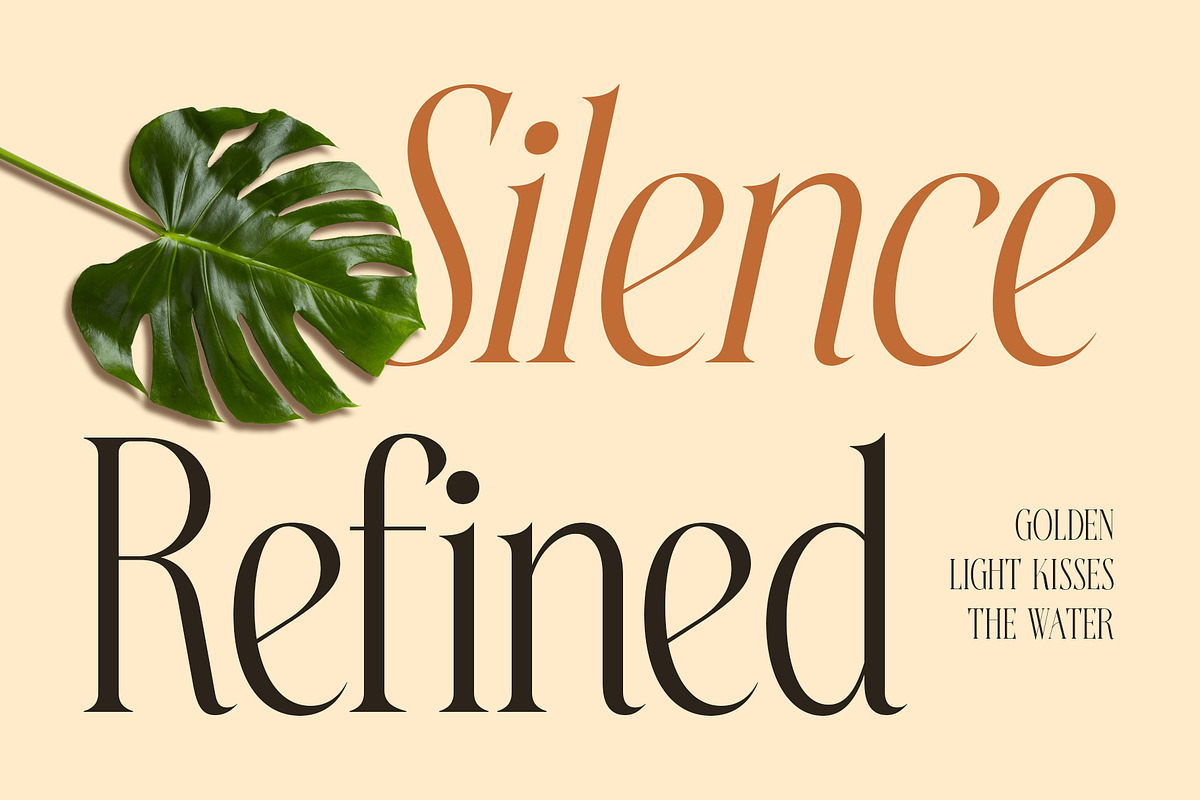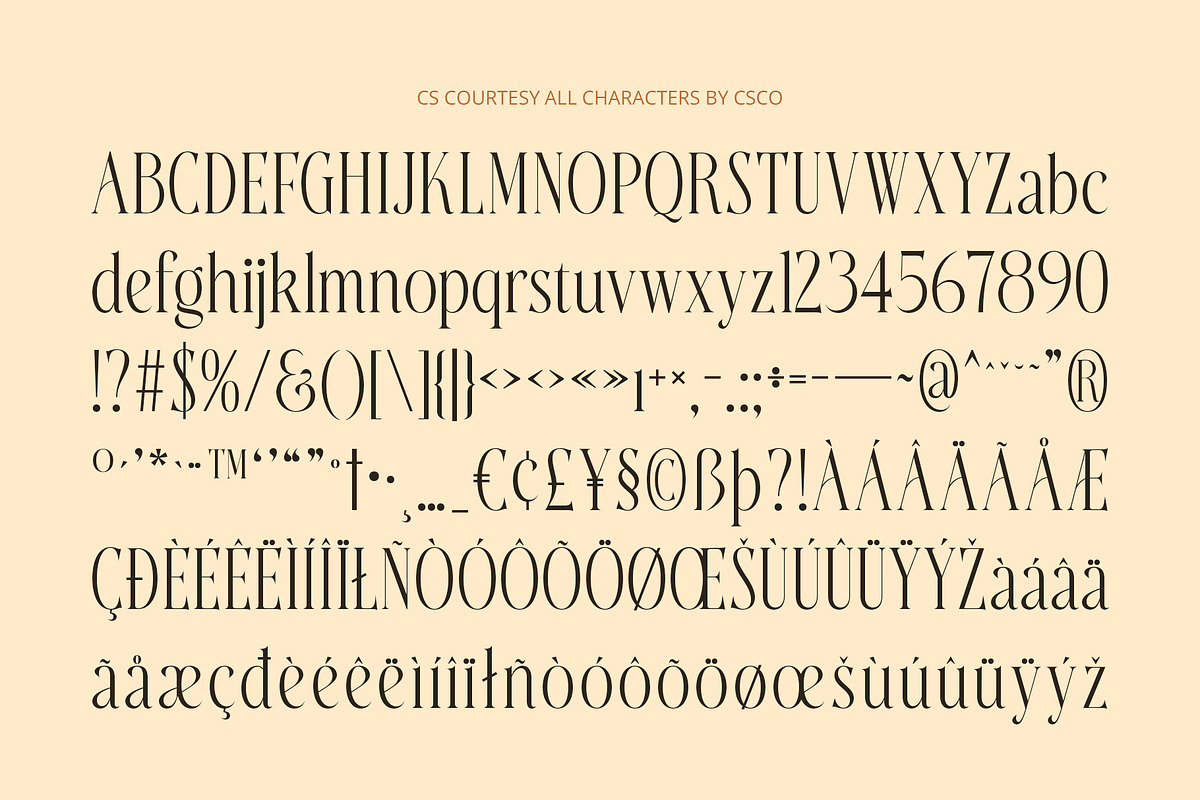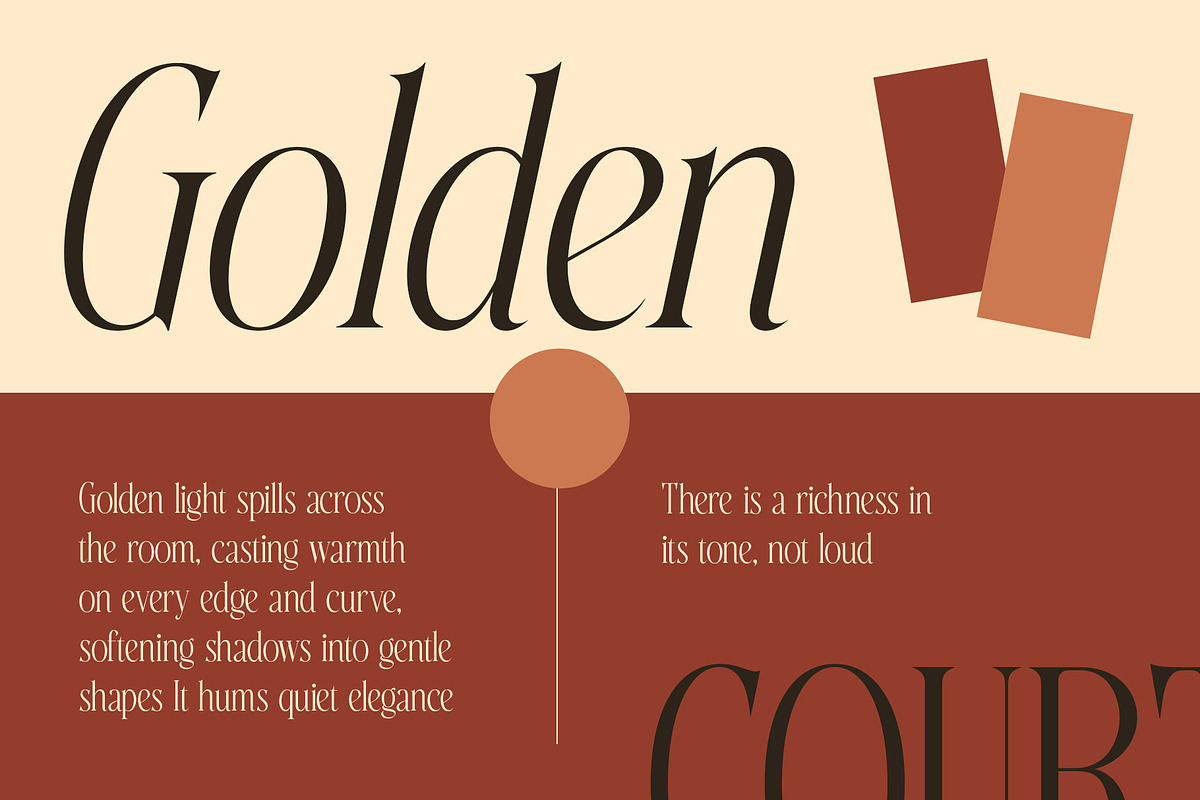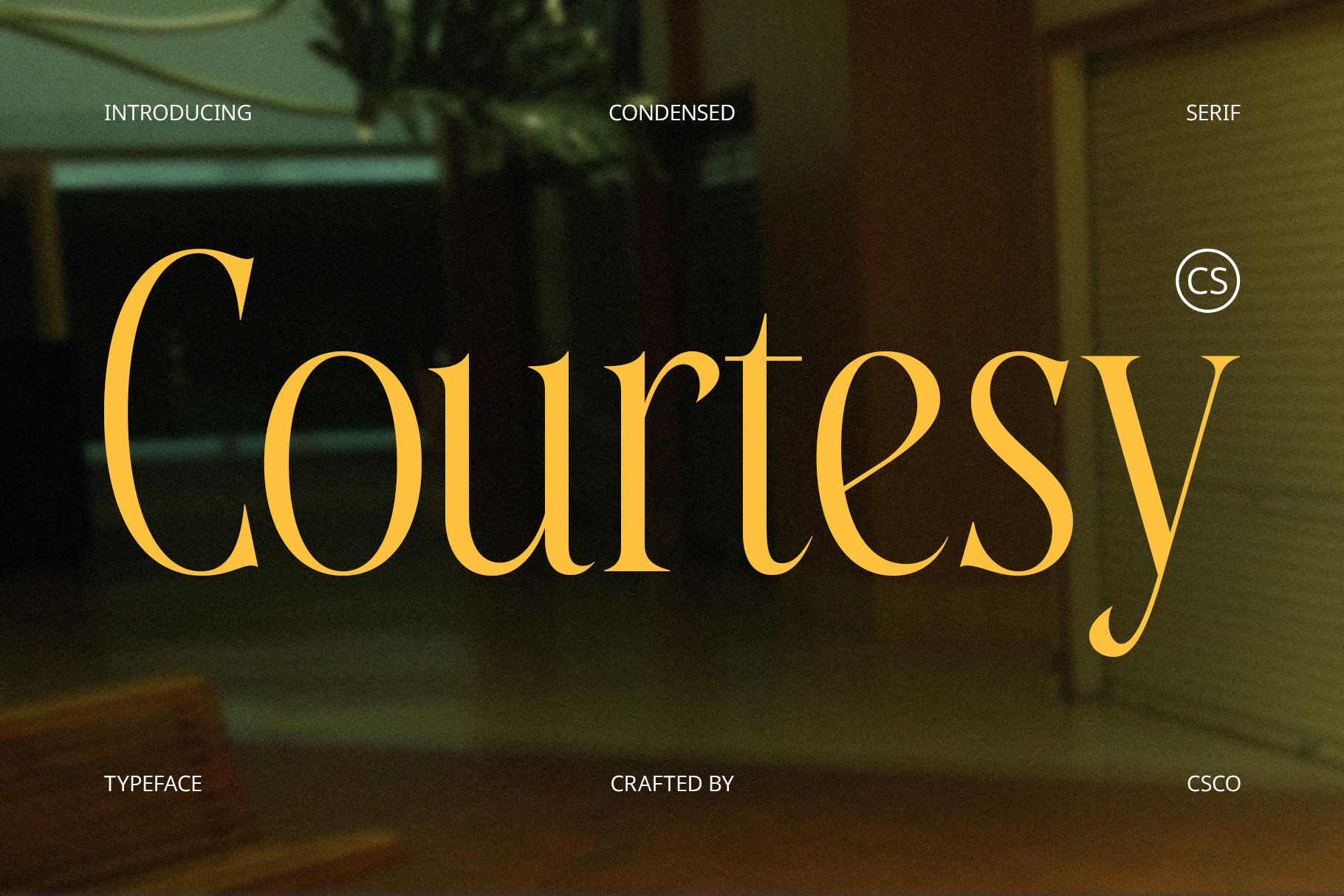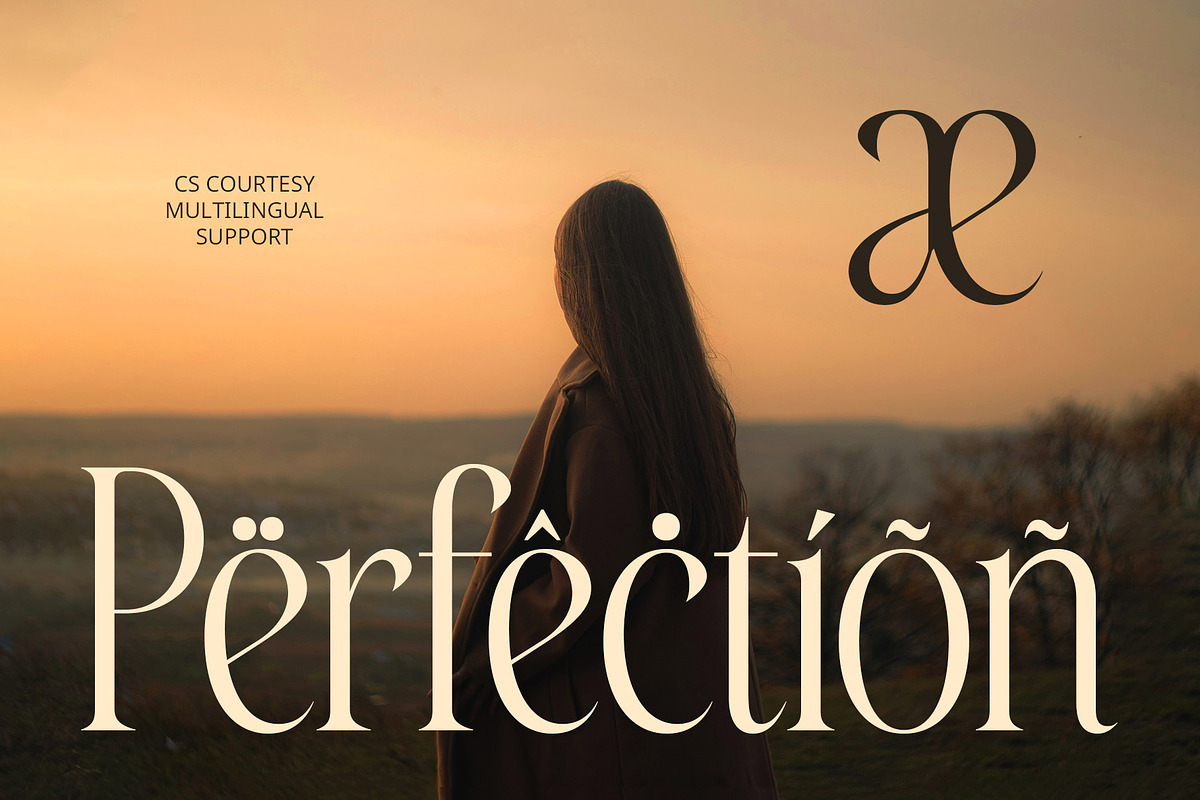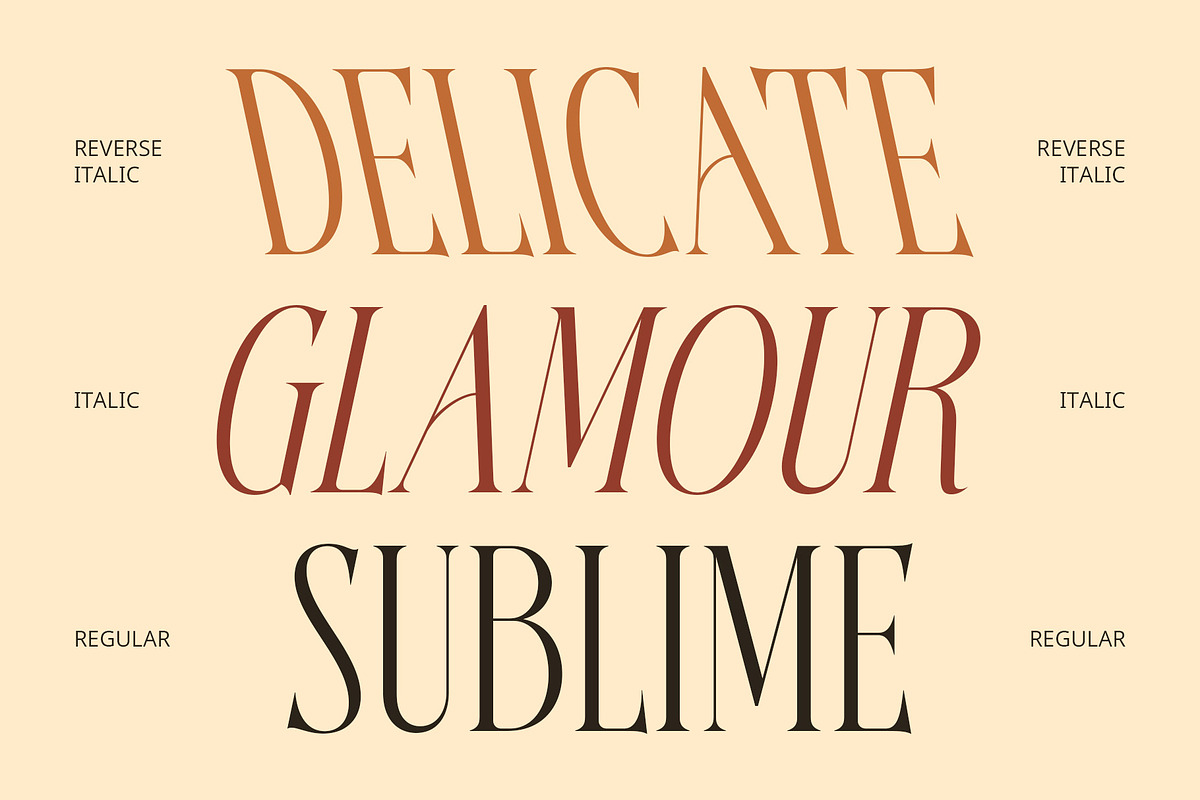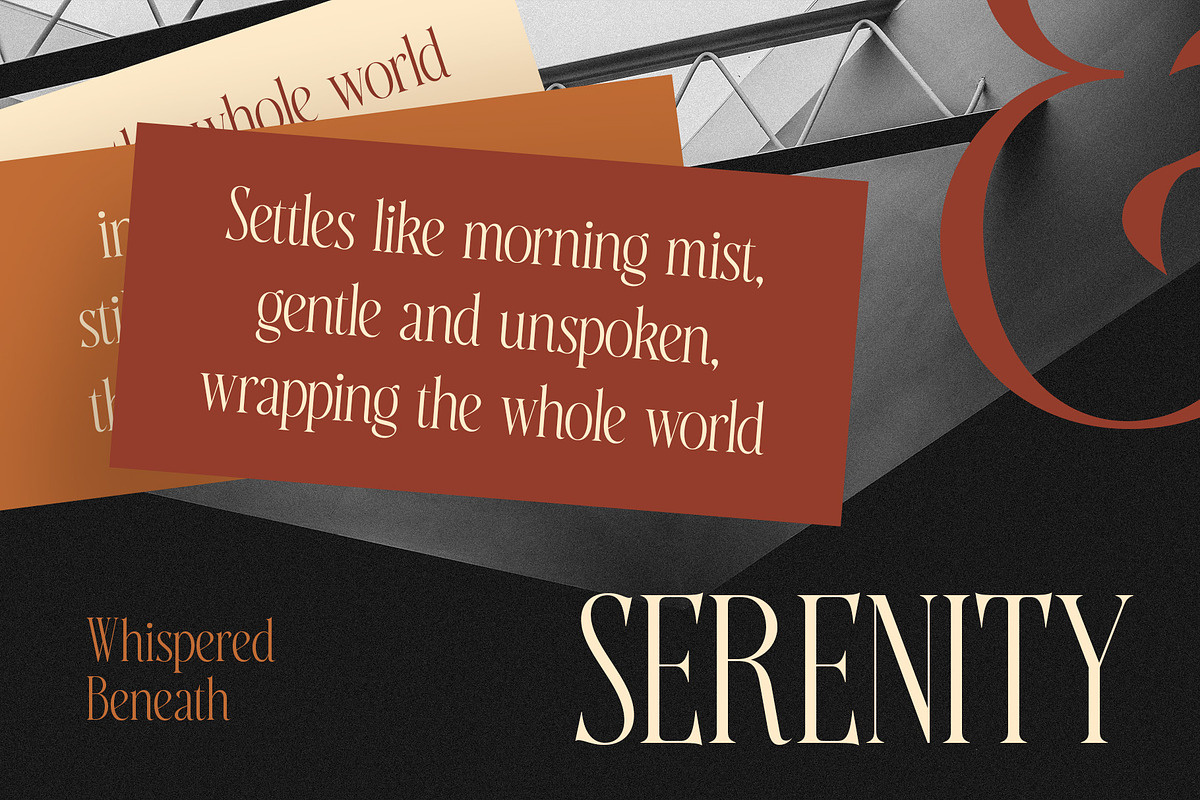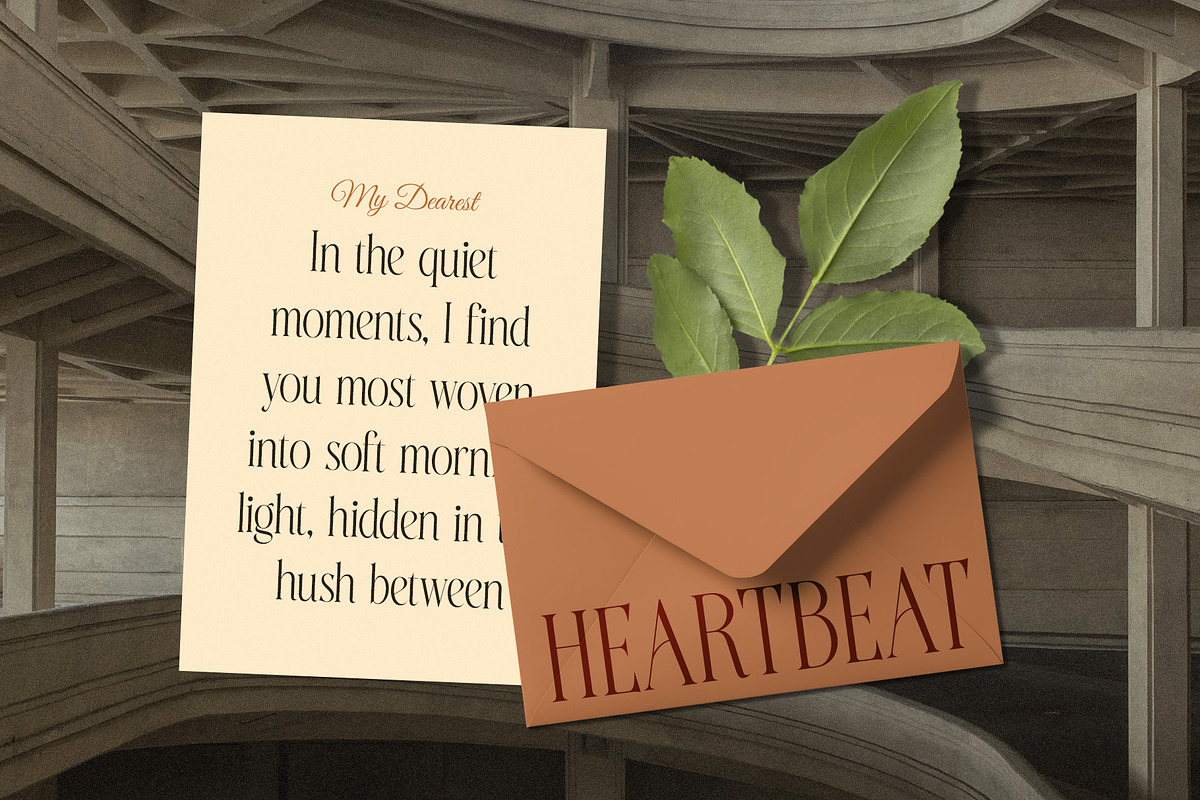
CS Courtesy – Elegant Font
CS Courtesy – Elegant Font: Where Classic Sophistication Meets Modern Clarity
Refined, Slender Letterforms with a Timeless Feel CS Courtesy is a modern long serif font that brings together refined elegance and a sense of high-end simplicity. Its elongated letterforms, delicate serifs, and balanced proportions create a visually graceful typeface that captures the essence of timeless beauty.
Minimalist Structure with Classical Roots While rooted in the traditions of classic serif typography, CS Courtesy reinterprets these forms through a minimalist lens. It simplifies ornamental excess into purposeful shapes, offering a clean, modern approach without losing the warmth and elegance of its origins. This blend of old and new creates a distinctive typeface suitable for both contemporary and traditional applications.
Polished and Elegant Visual Identity Designed to convey refinement and clarity, CS Courtesy is perfect for projects where elegance is key. Its carefully constructed characters and subtle details enhance readability while delivering a luxurious impression. Whether used large for dramatic headlines or in smaller settings like pull quotes or packaging, the font maintains its poise and charm.
Ideal for Editorials, Branding, and Premium Design From luxury branding and beauty packaging to fashion editorials and boutique logos, CS Courtesy provides the perfect voice for graceful design. Its long, slim structure and refined finish make it an excellent choice for projects that aim to communicate sophistication, professionalism, and timeless visual identity.
- CS Courtesy Regular
- CS Courtesy Italic
- CS Courtesy Reverse Italic